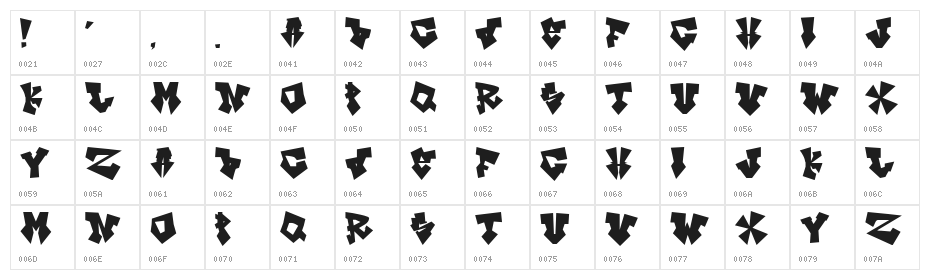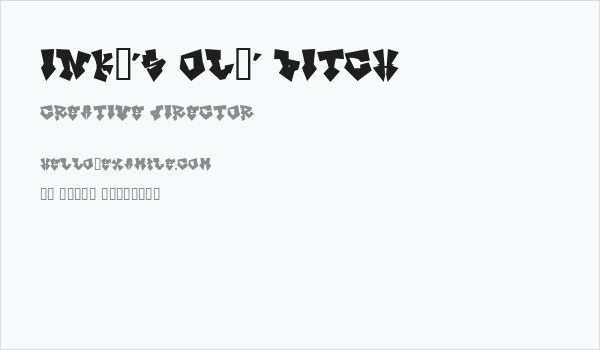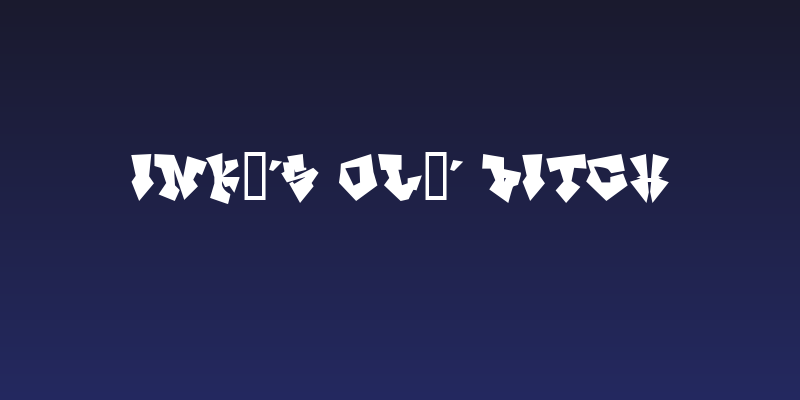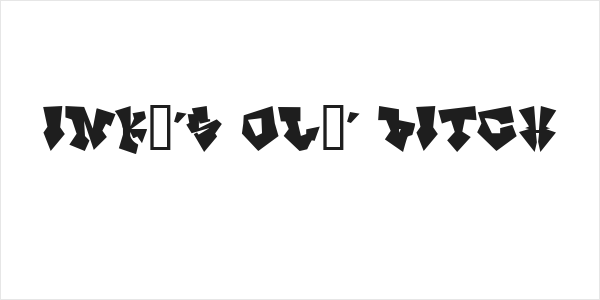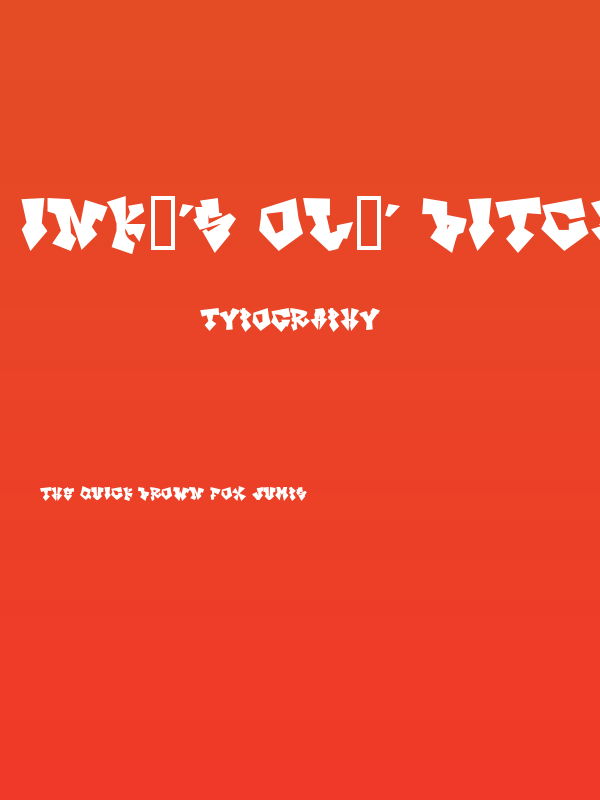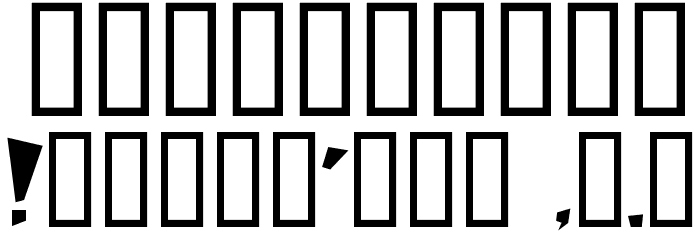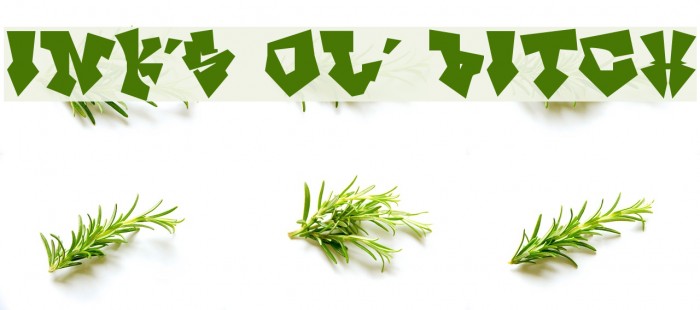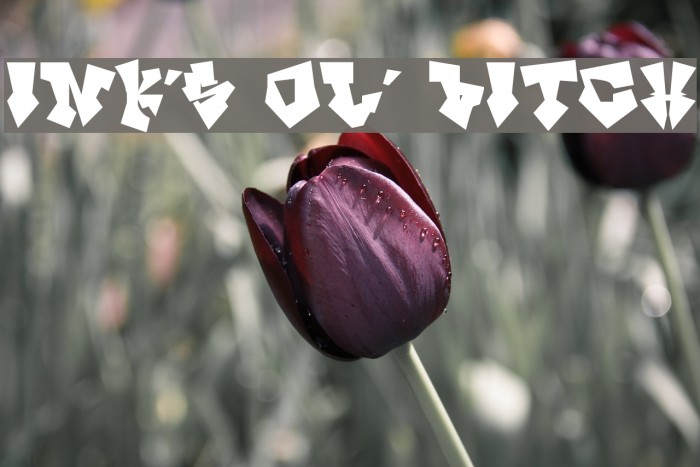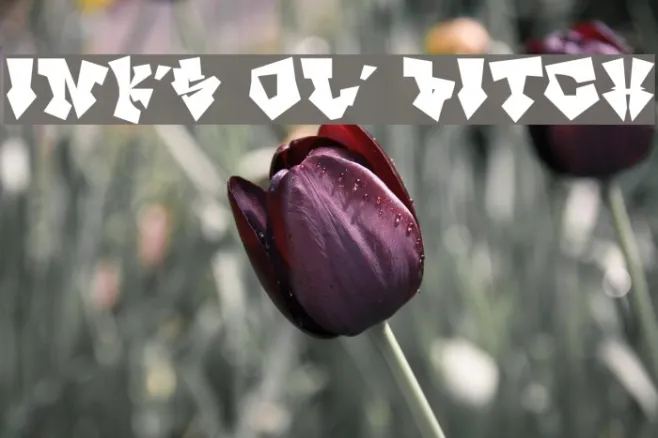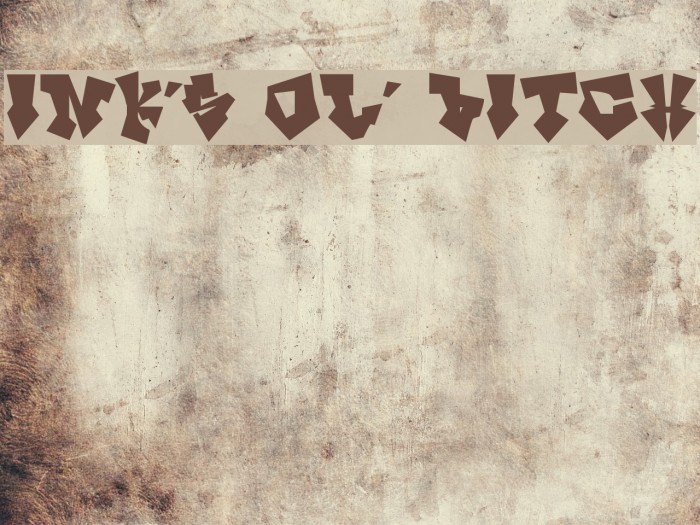
InK's ol' Bitch Font
InK's ol' Bitch Description
This font features a bold, angular design with a distinctly geometric and edgy appearance. The characters are composed of sharp, jagged lines and shapes, creating a sense of movement and energy. The uppercase letters are particularly striking, with each character appearing as a unique, abstract form. The font's style is reminiscent of graffiti or street art, making it ideal for projects that require a modern, rebellious aesthetic. The lack of curves and the emphasis on straight lines and angles give it a strong, impactful presence. This font is best suited for display purposes where it can be used to capture attention and convey a sense of boldness and creativity.
| Proposed Projects | Ideal for street art designs, music album covers, urban-themed posters, and edgy branding. |